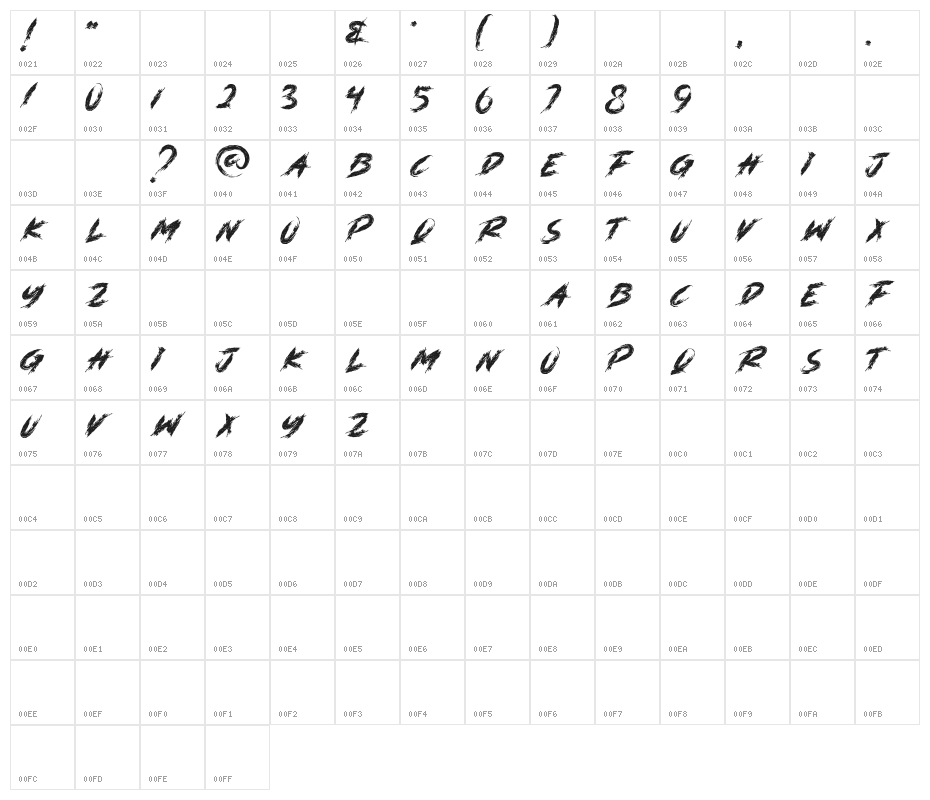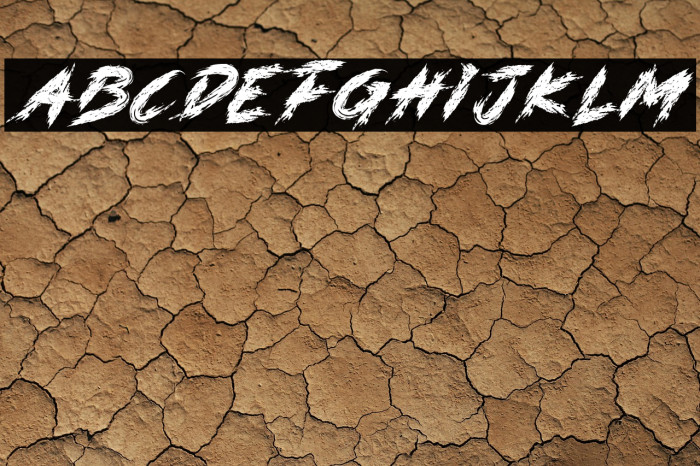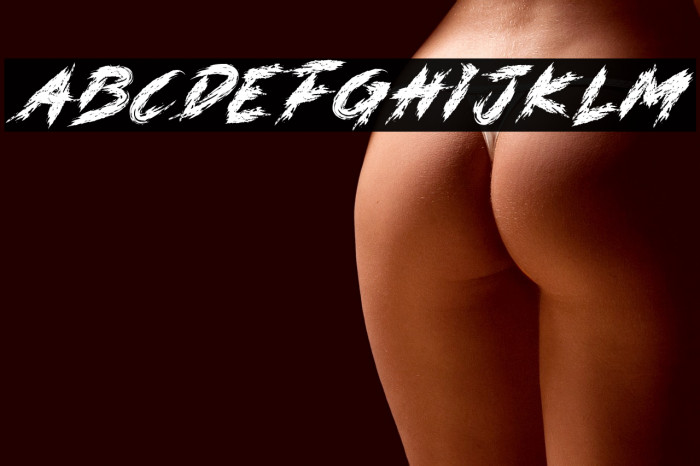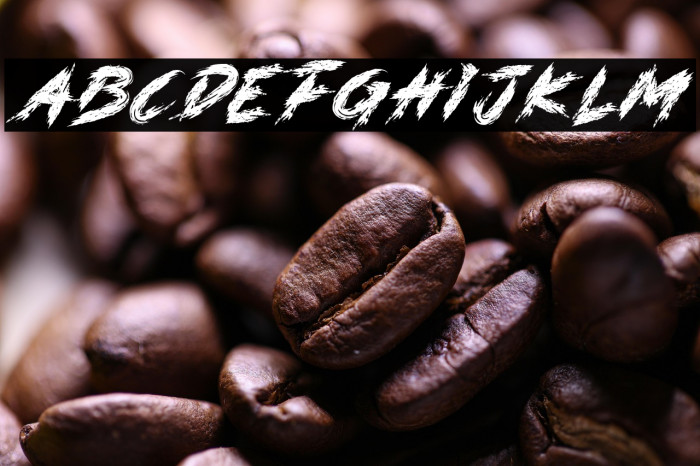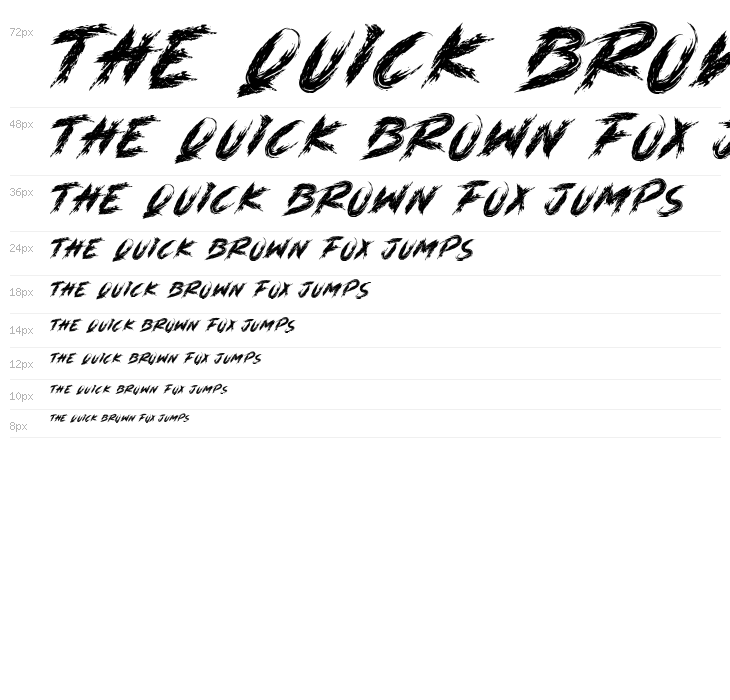
DANGER ZONE Font
DANGER ZONE Description
This font features a bold, aggressive style with a brush-like texture that gives it a dynamic and energetic appearance. The strokes are irregular and jagged, creating a sense of movement and intensity. Each character is uniquely crafted, with varying thicknesses that add to the chaotic yet controlled aesthetic. The uppercase and lowercase letters maintain a consistent style, while the numbers and special characters complement the overall design. This font is perfect for projects that require a strong visual impact and a sense of urgency or excitement.
| Overall Style | Modern, Energetic |
| Proposed Projects | Ideal for posters, album covers, video game titles, and extreme sports branding. |